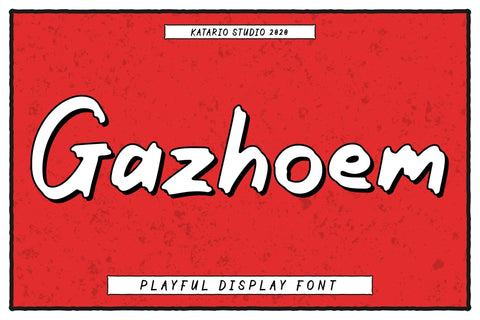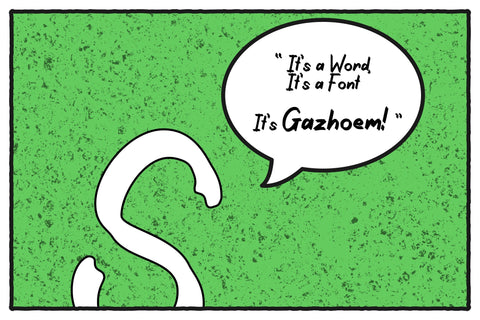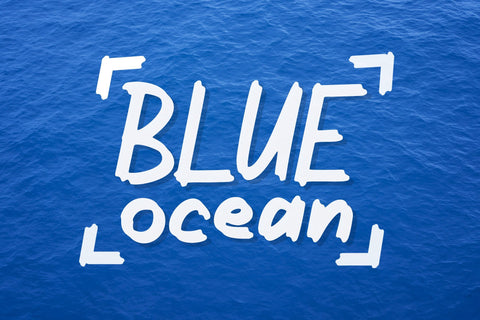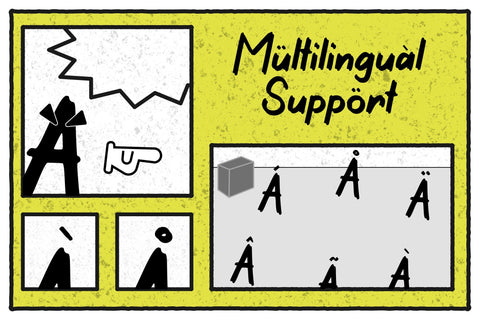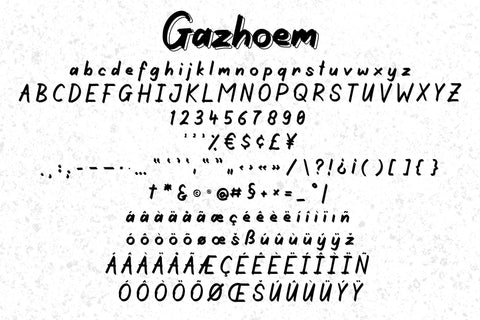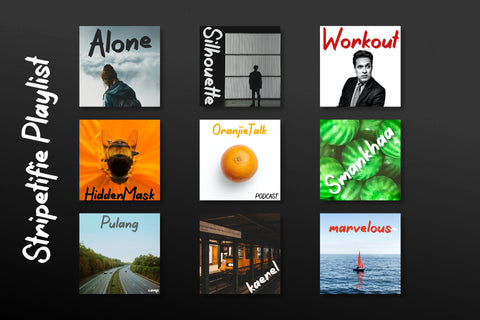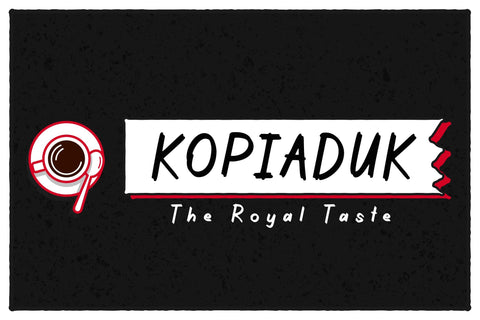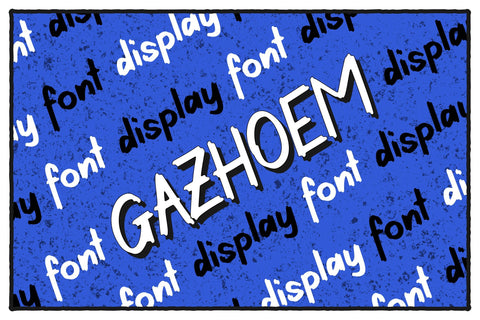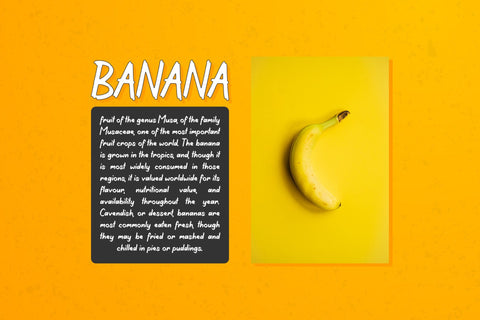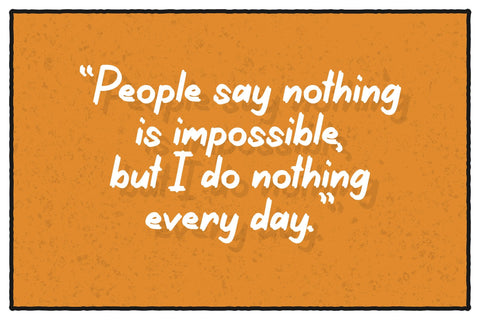
Gazhoem | Playful Comic Brush Font
Gazhoem results out of a stunning pairing of a brush pen and pencil that makes it look incredibly endearing and authentic. Use this gorgeous and unique display font to bring any DIY project to life!